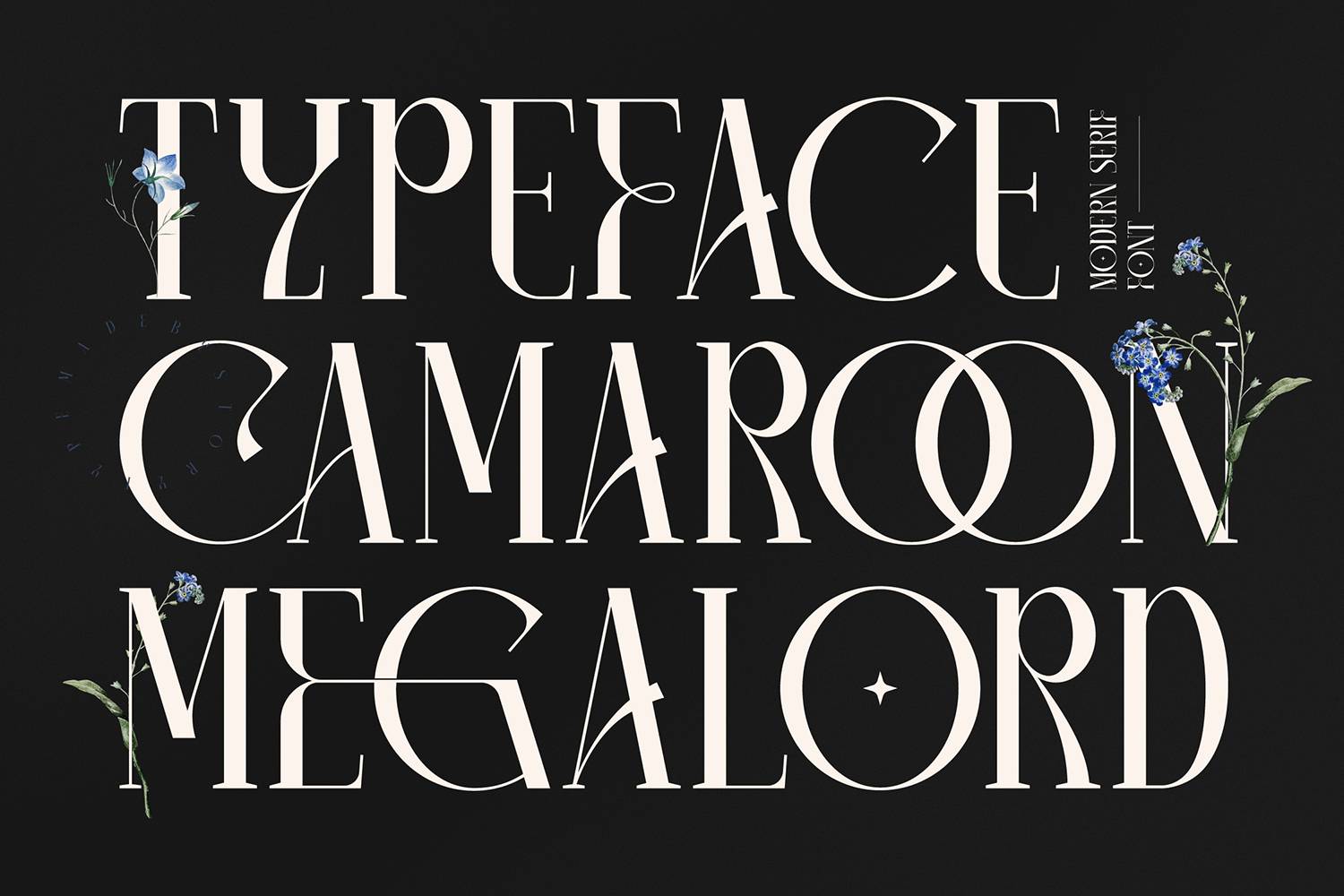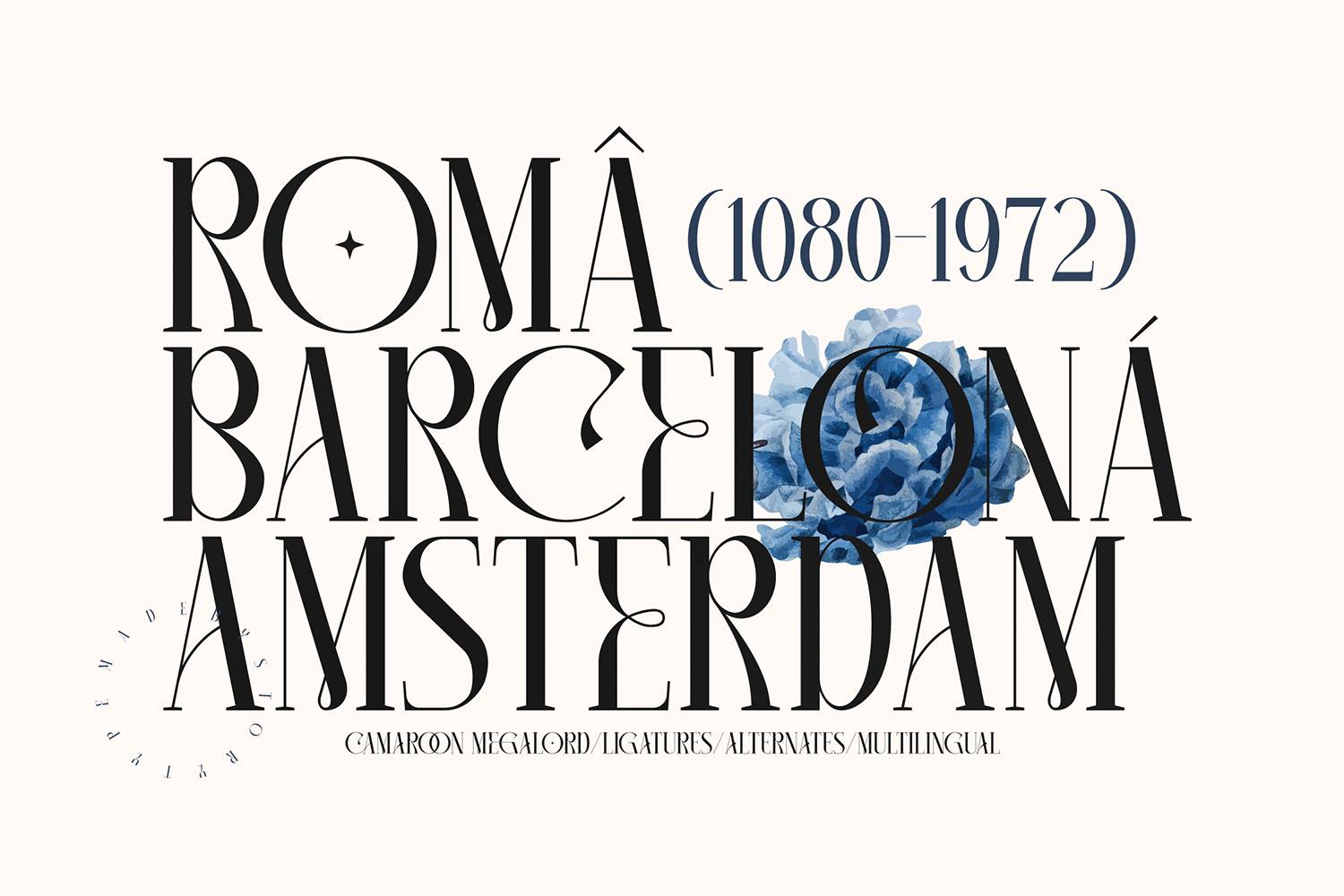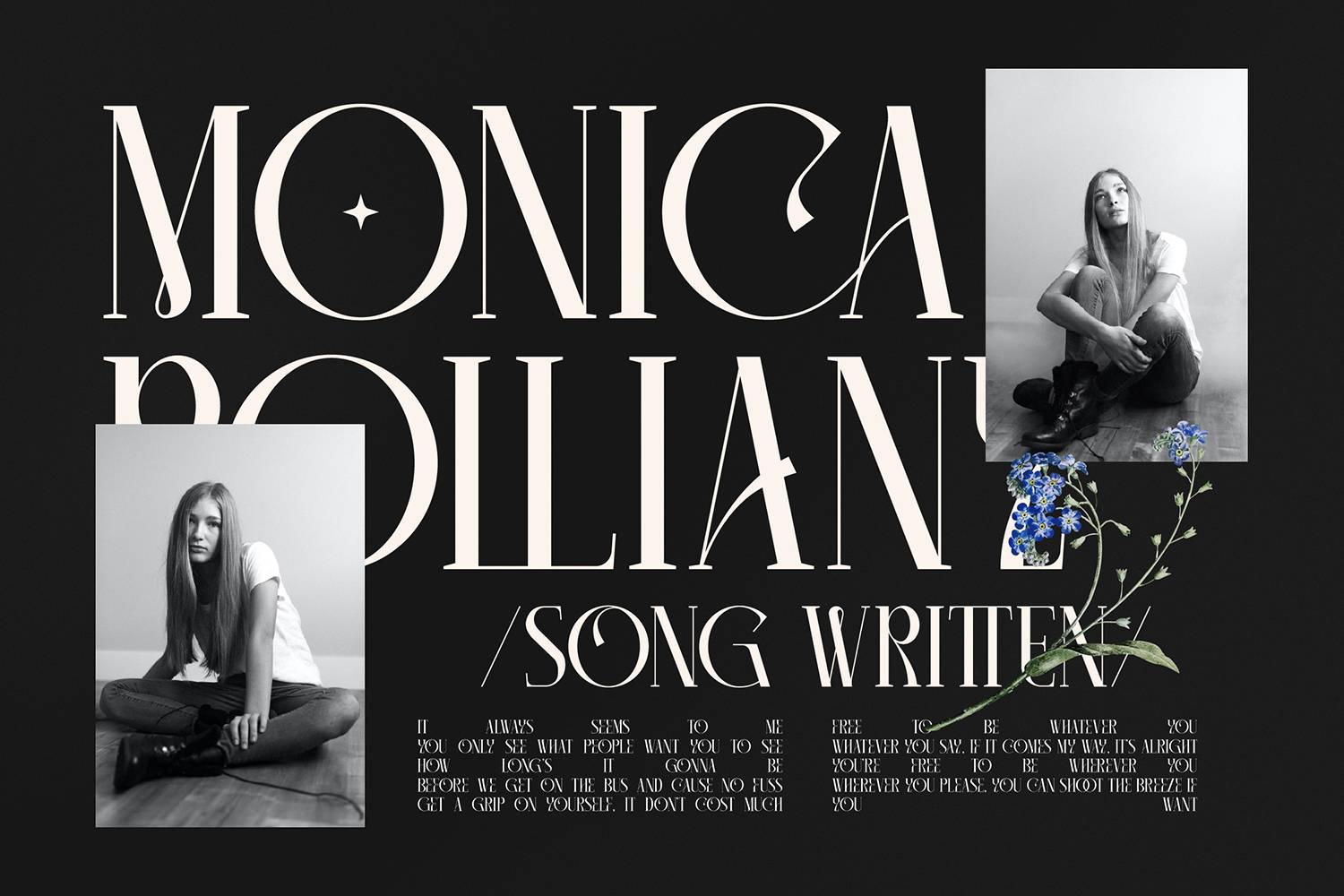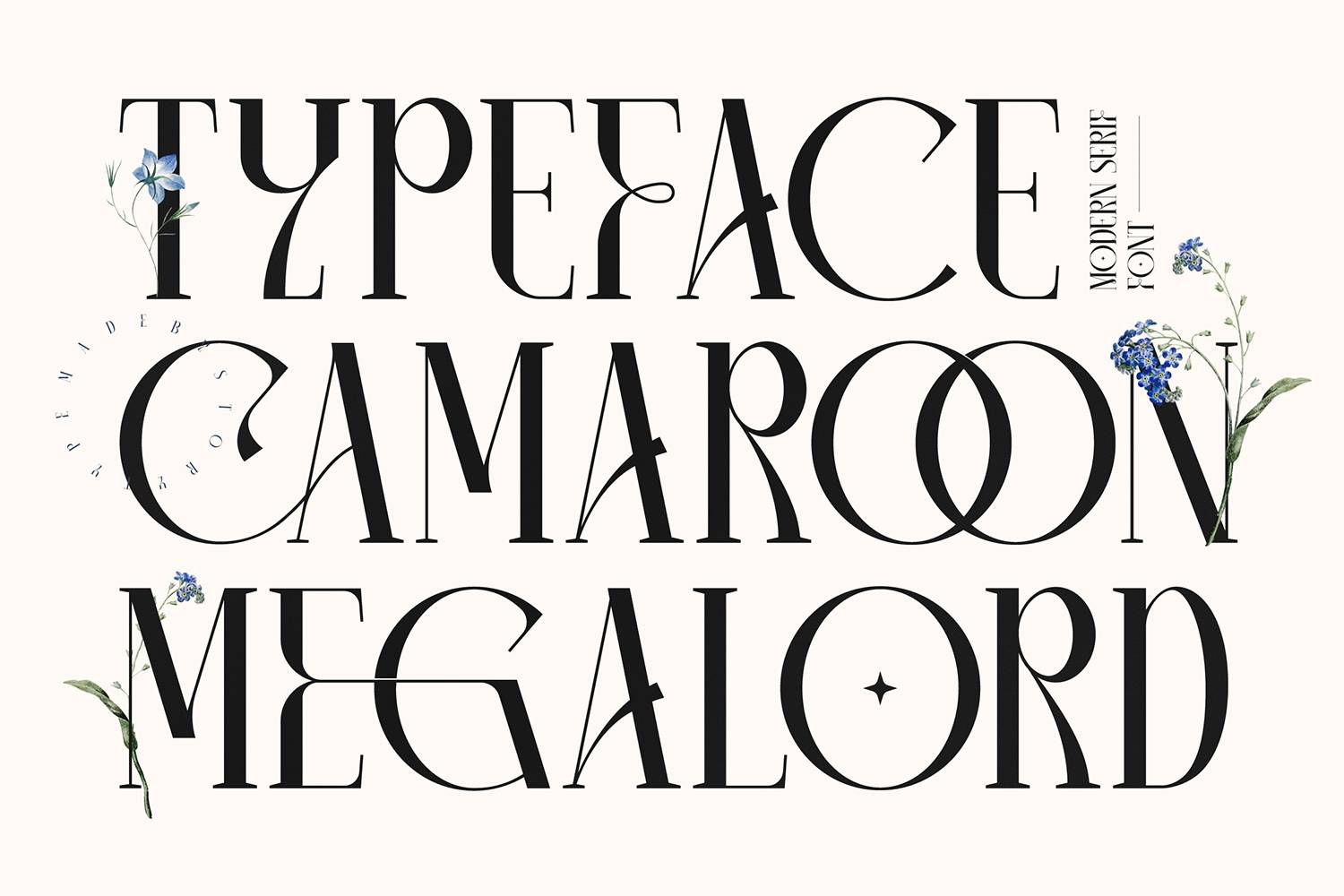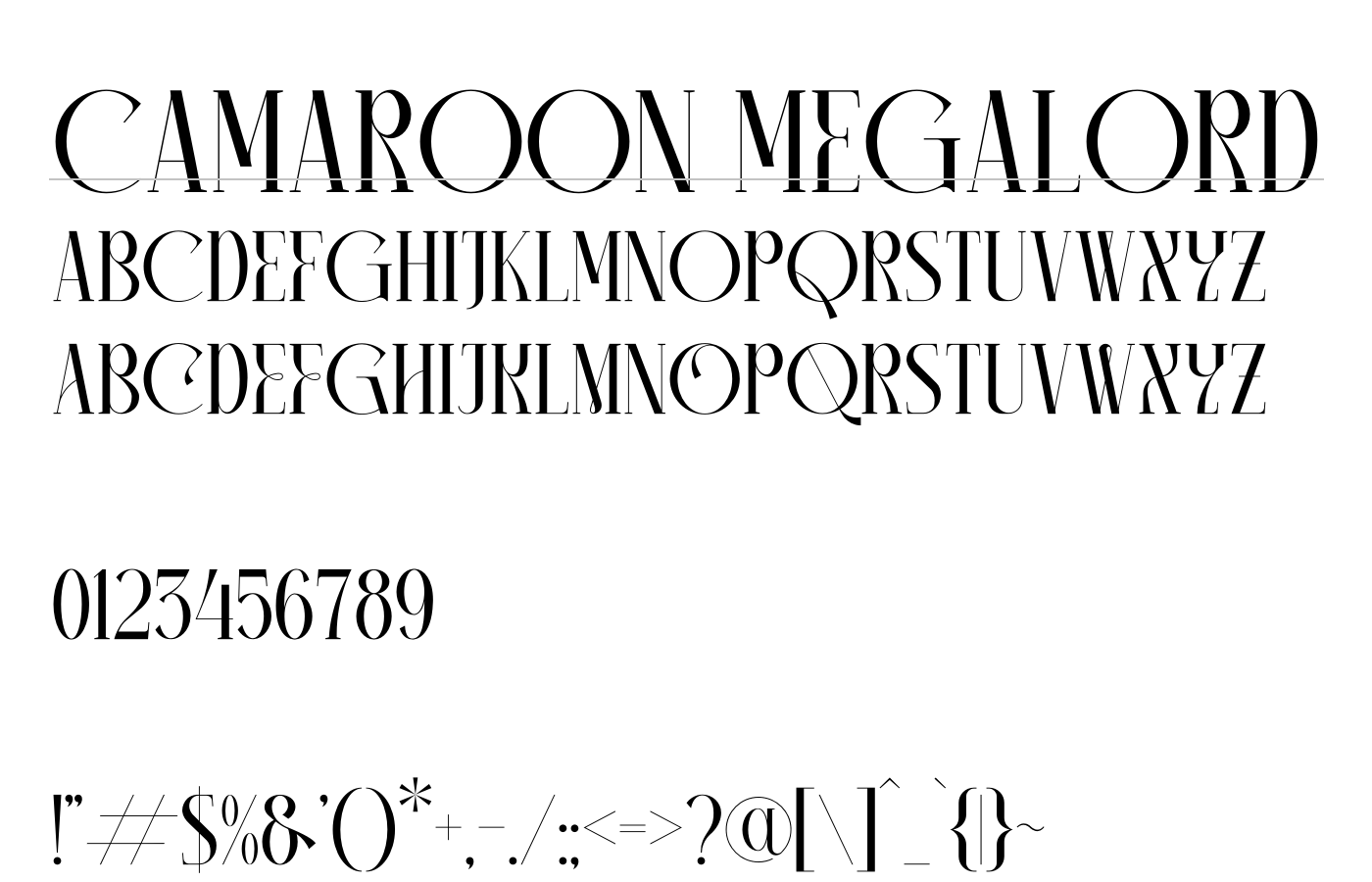
Camaroon Megalord is a striking serif font with a high-contrast, elegant design that features tall, narrow letterforms and delicate, thin serifs. Its unique and artistic shapes convey a sophisticated, modern vibe perfect for luxury branding, editorial headlines, and upscale packaging. This font stands out with its refined style, making it ideal for creating memorable, high-impact visuals that exude class and creativity.
Camaroon Megalord Font
About Camaroon Megalord Font